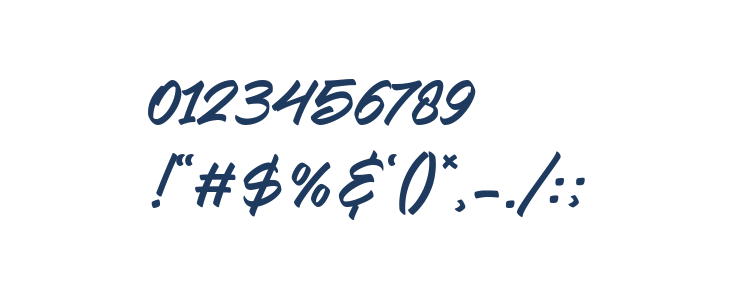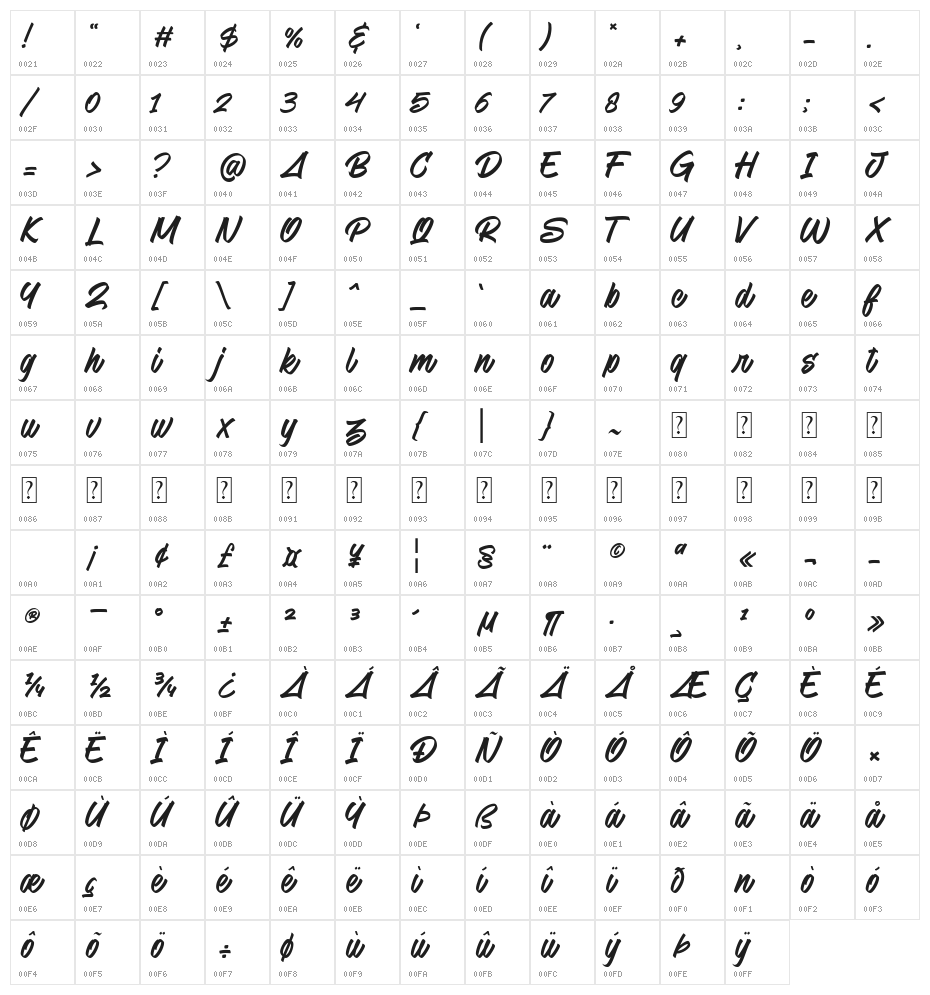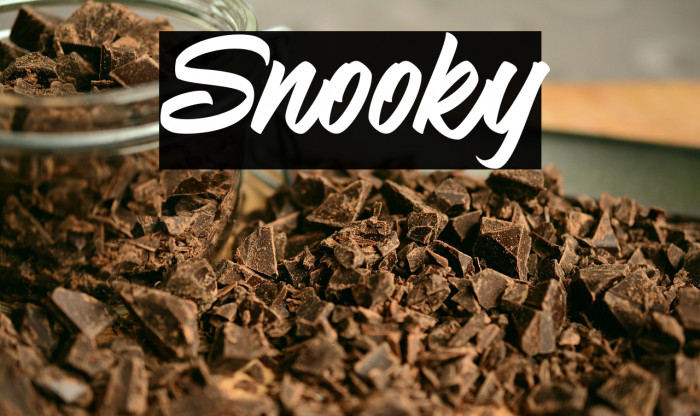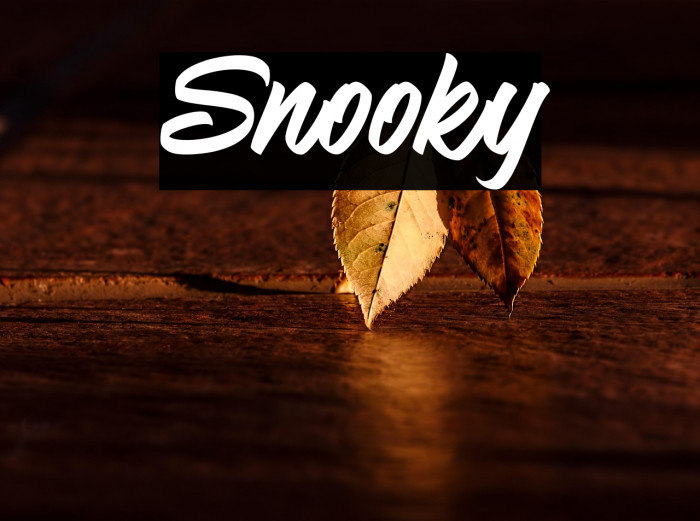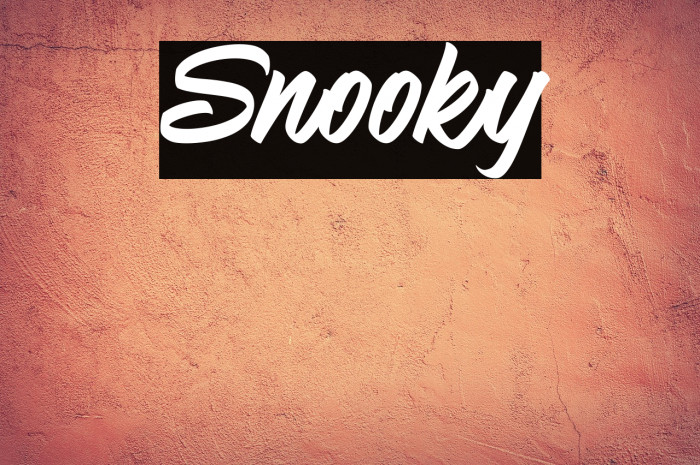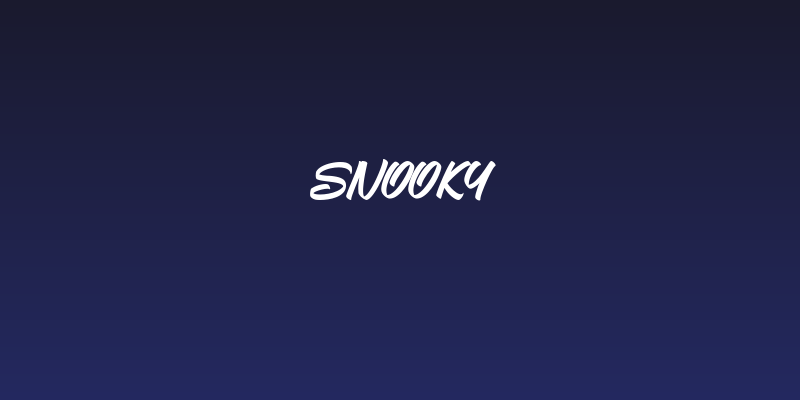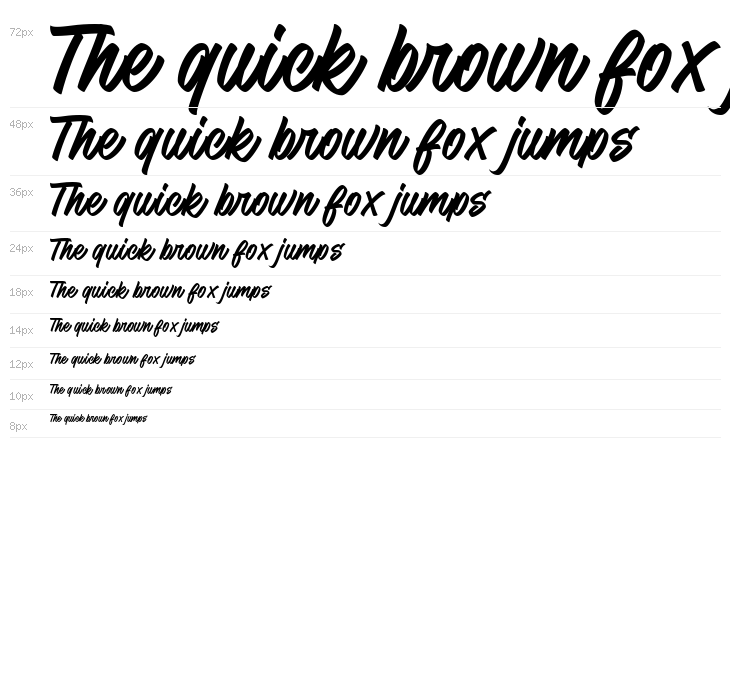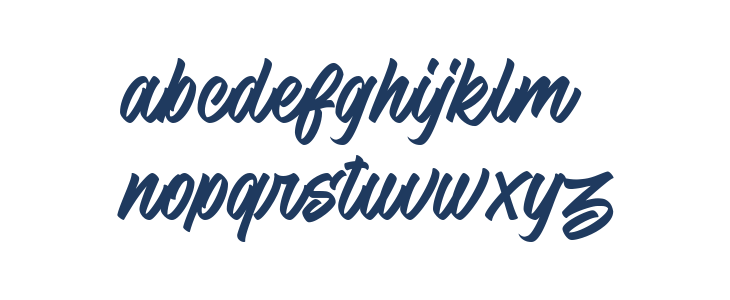
Snooky Font
Snooky Description
This font features a bold and dynamic script style with a strong presence. The letters are connected in a fluid manner, giving it a handwritten appearance. The strokes are thick and consistent, providing a sense of energy and movement. It has a playful yet sophisticated look, making it suitable for creative and expressive designs. The uppercase and lowercase letters maintain a cohesive style, while the numerals and special characters complement the overall aesthetic. The font's boldness ensures readability, even at smaller sizes, while its unique style adds character to any project.
| Use Case | Logos, Headlines, Posters |
| Proposed Projects | Ideal for branding, logos, invitations, and creative posters. |